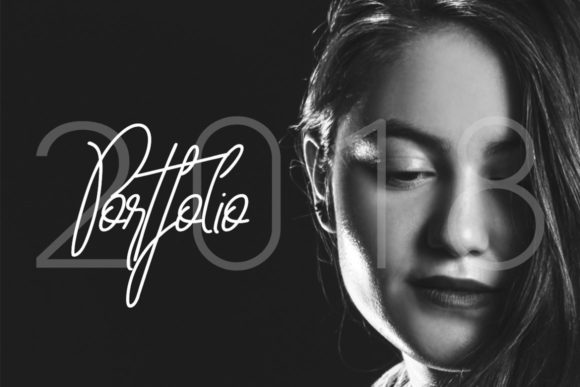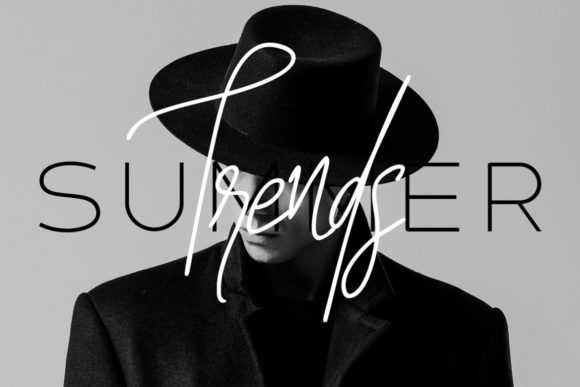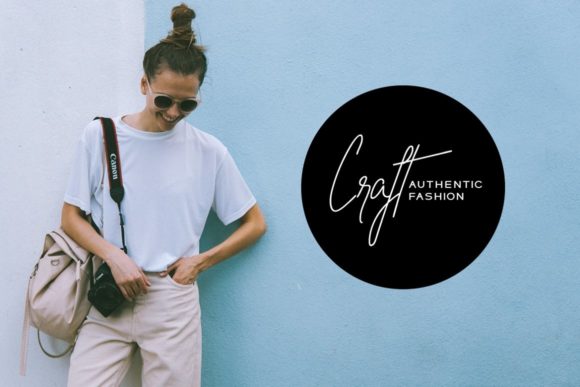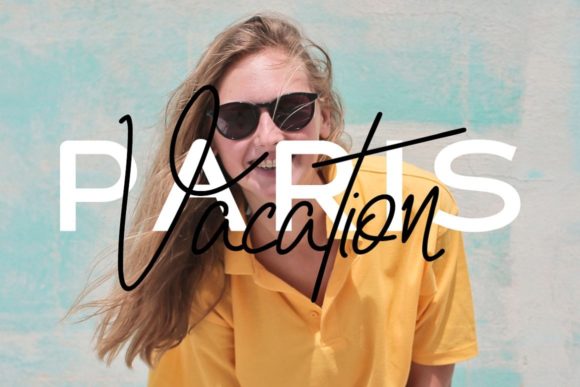
Portia & Signal Duo Font
About Portia & Signal Duo Font
This is a beautiful fashion font duo that combines our fonts Portia-Mora and Signal. This duo is perfect for making amazing logos, fashion posters, wedding invitations, blog posts, social media, and anything in between!